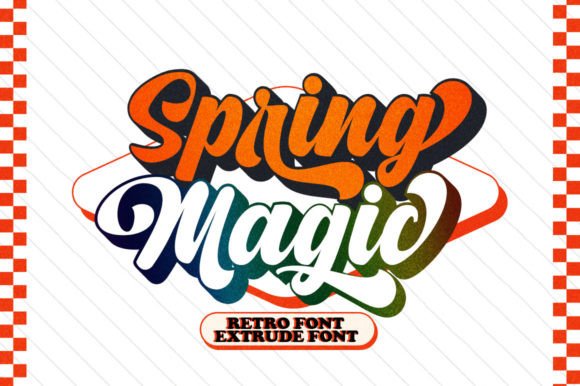
Introducing Spring Magic Font, a captivating urban retro font designed by the talented team at LetterFreshStudio. If you're looking to create a stunning logotype or lettering style for your brand or clients, this font is your ultimate weapon of choice. With its unique and eye-catching design, Spring Magic Font is here to elevate your creative projects to new heights.
What sets Spring Magic Font apart from the rest is its distinct logotype lettering style. This font exudes a perfect blend of urban vibes and retro charm, making it perfect for those seeking a touch of nostalgia in their designs. Whether you're working on a vintage-inspired logo or an edgy branding project, this font will effortlessly lend a sense of cool and authenticity to your work.
One of the standout features of Spring Magic Font is its PUA encoding. What does this mean for you? It means that you can effortlessly access a wide range of amazing glyphs and ligatures, allowing you to unleash your creativity and experiment with various design possibilities. Say goodbye to limitations and hello to endless typographic adventures!
With Spring Magic Font, the power to create captivating visuals is now in your hands. Let your imagination run wild as you explore the countless ways this font can breathe life into your projects. From bold headlines to attention-grabbing social media posts, this font will make sure your message stands out from the crowd.
But Spring Magic Font is not just about aesthetics; it's also about the emotional connection it creates with your audience. The unique style of this font evokes a sense of nostalgia, making it perfect for those seeking to establish a strong emotional bond with their customers. Whether you're targeting a specific demographic or aiming for a broader audience, Spring Magic Font will evoke the right emotions and leave a lasting impression.